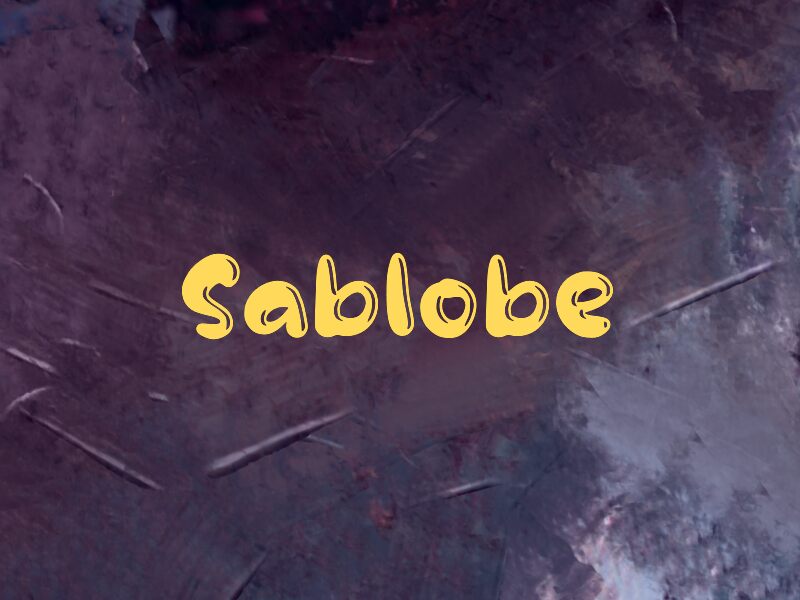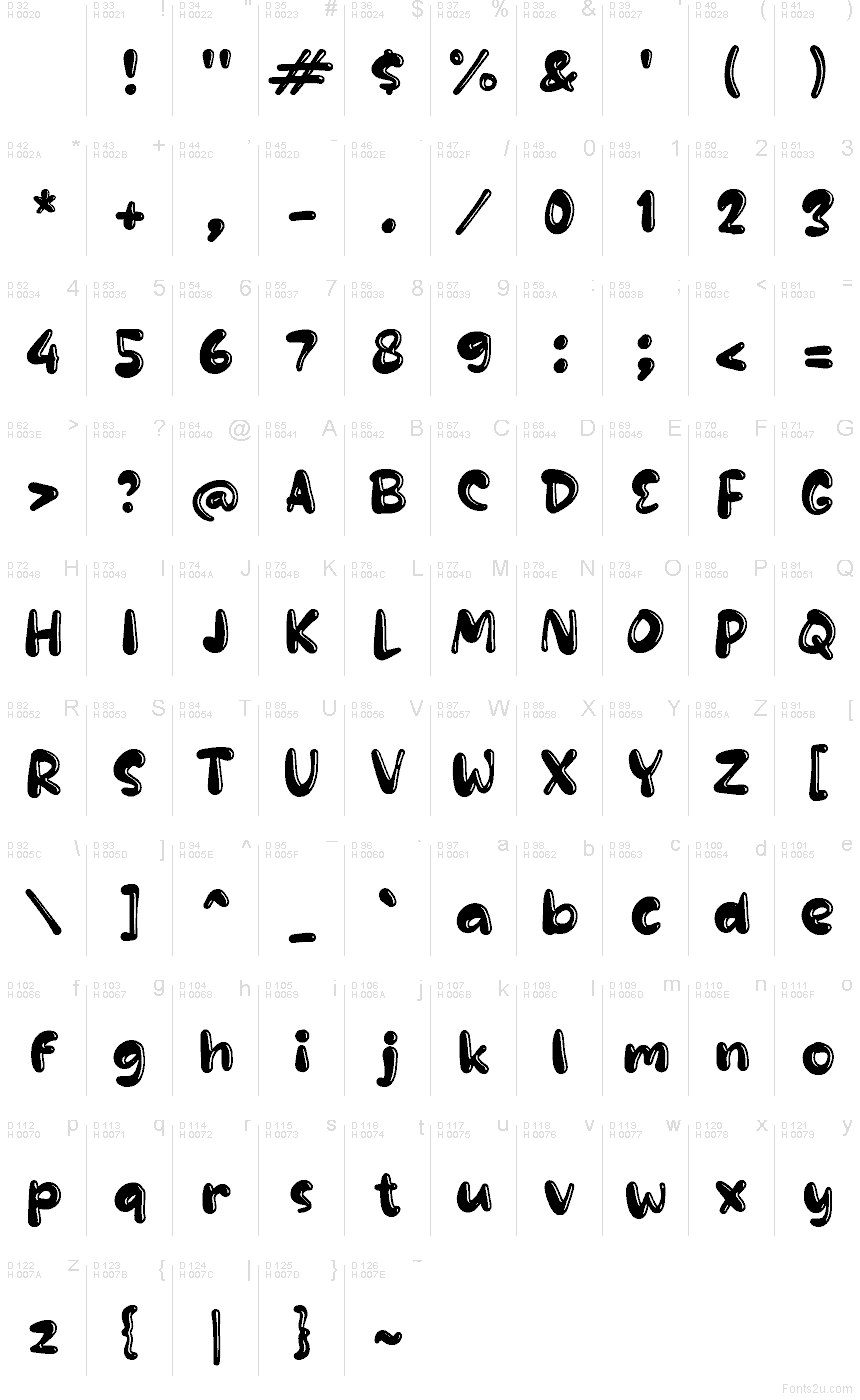
Sablobe
Sablobe font by wep is a free cartoon display typeface with letters that look like they’ve been piped out of glossy black icing or poured from thick ink. The rounded, blobby shapes feel playful and a little mischievous, with squishy forms that seem to wobble and bounce across the line. It has a strong, in-your-face presence that grabs attention instantly, while still staying friendly and approachable.
Using Sablobe, you can add gooey, cartoon energy to kids’ posters, party invitations, slime or candy packaging, game titles, YouTube thumbnails, and quirky brand logos. This free font shines at large sizes, where its shiny, bulbous curves can really show off. For balance, pair Sablobe with a simple geometric sans in smaller text to keep everything readable while letting the blobby letters steal the show.